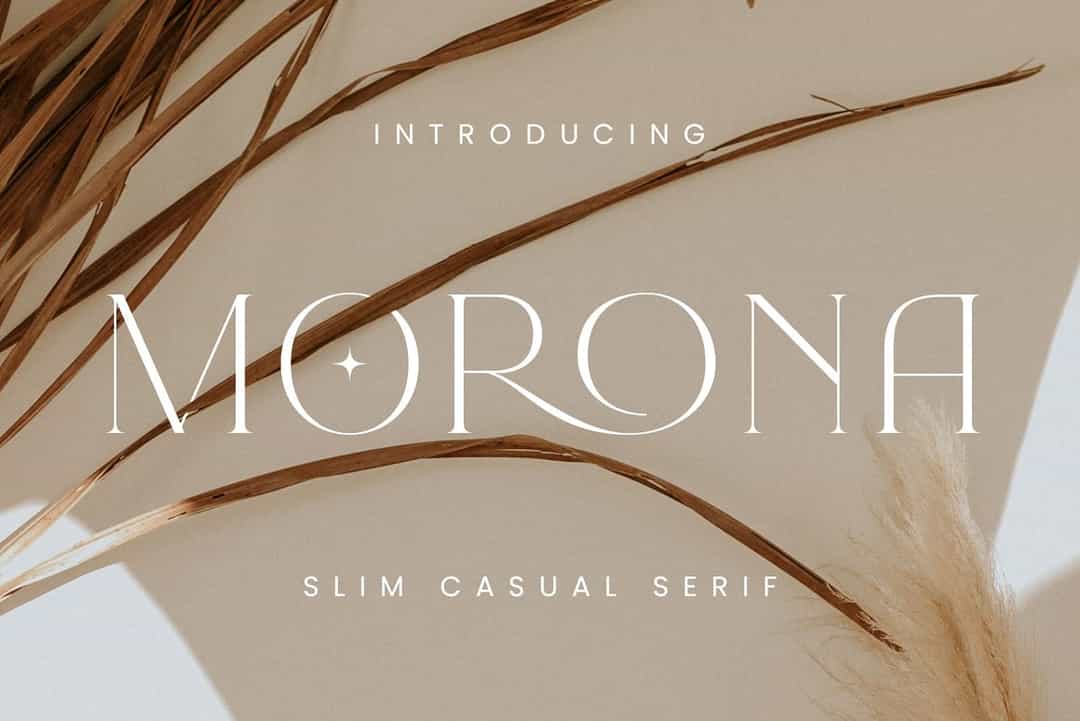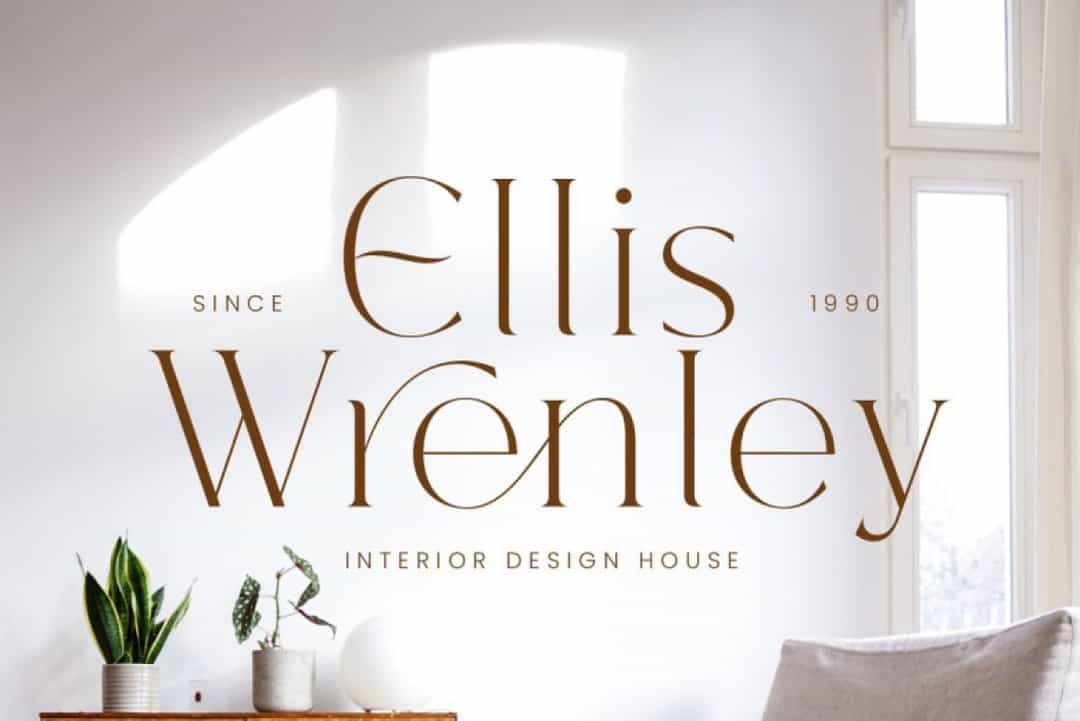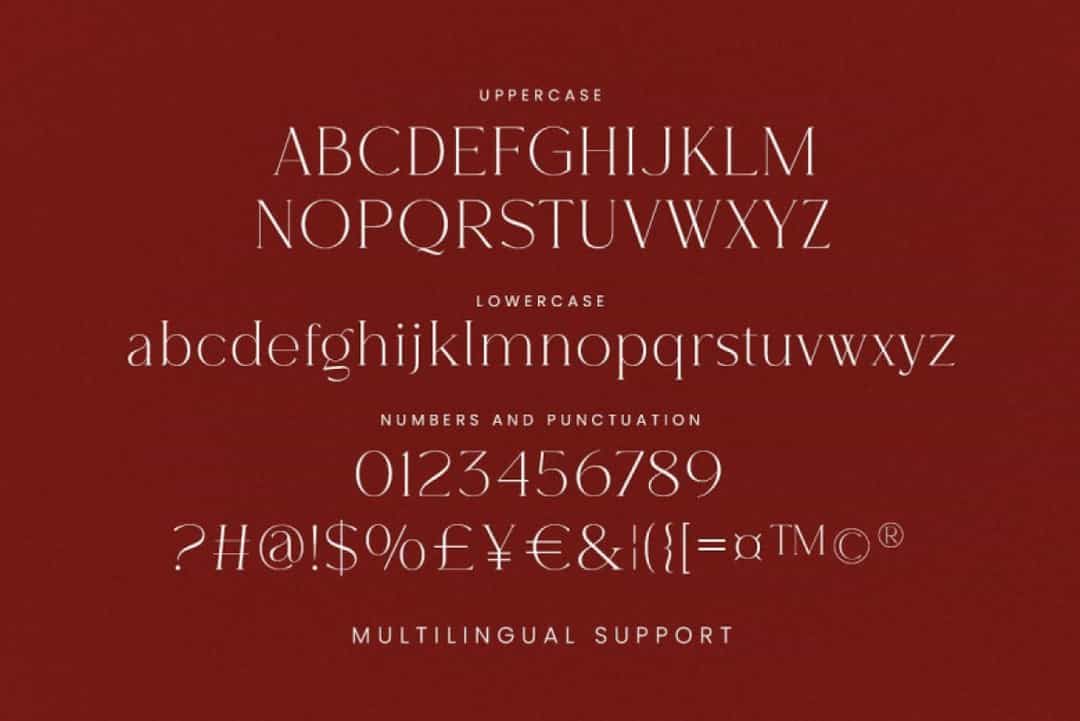
Morona is an exquisite serif font with an elegant and minimalist style, which makes it the ideal font for designs including displays, logos weddings fashion lifestyle branding and weddings. Morona boasts unique characters which produce breathtaking results for designs.